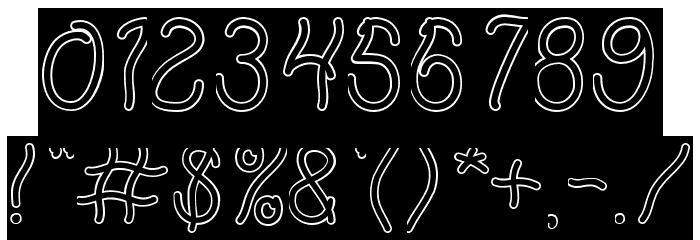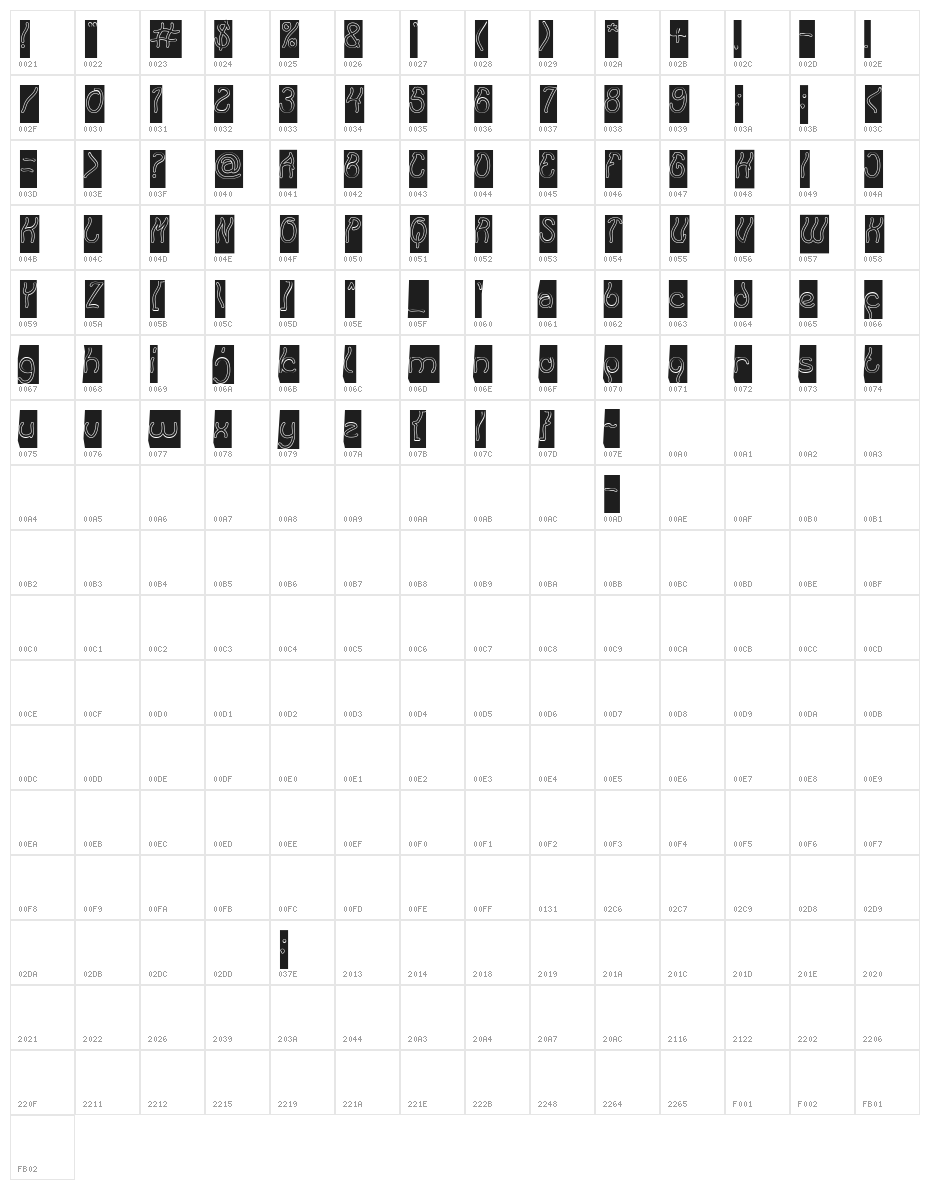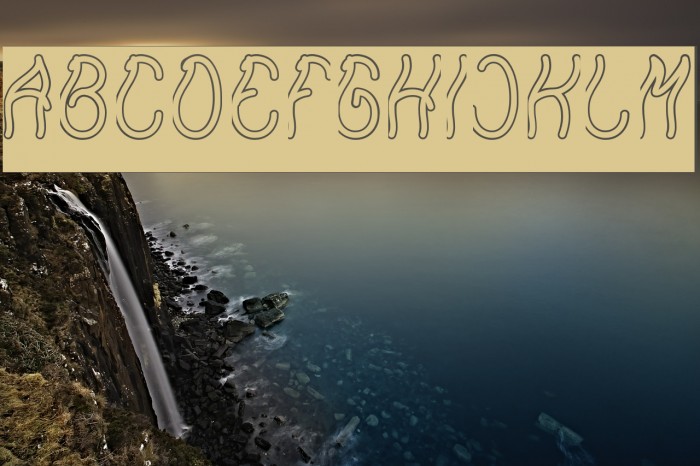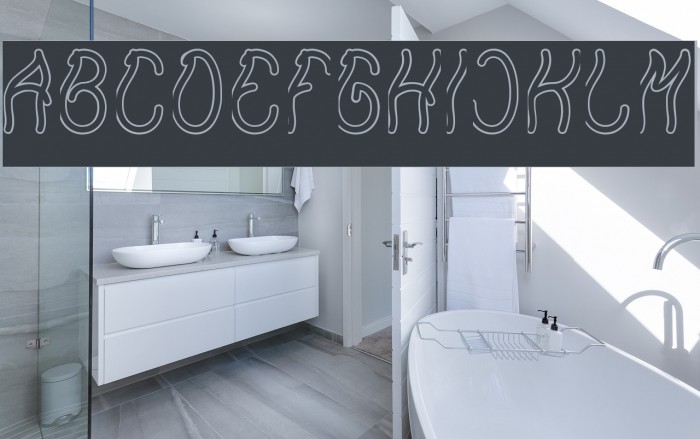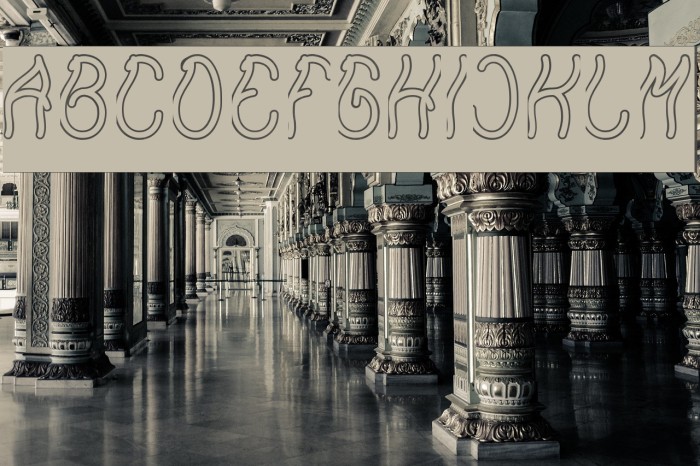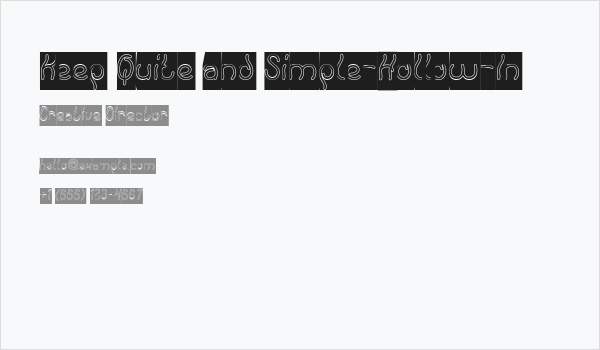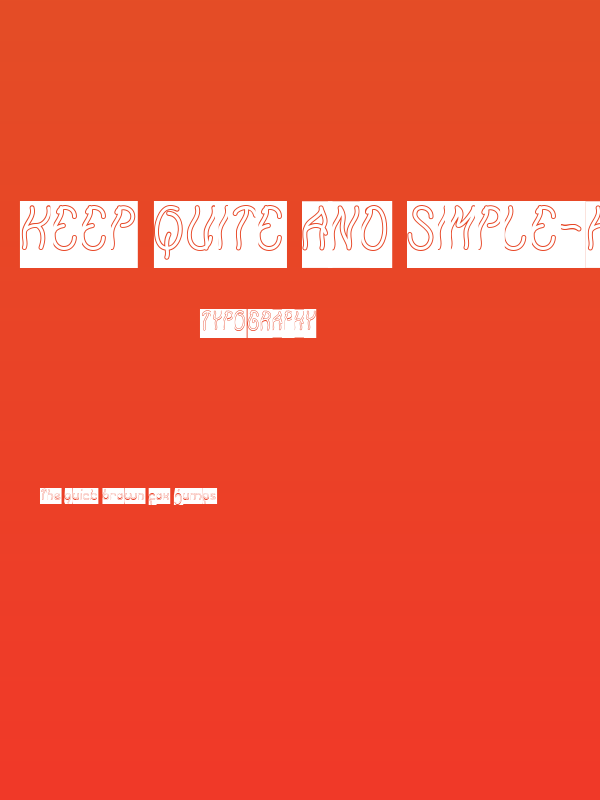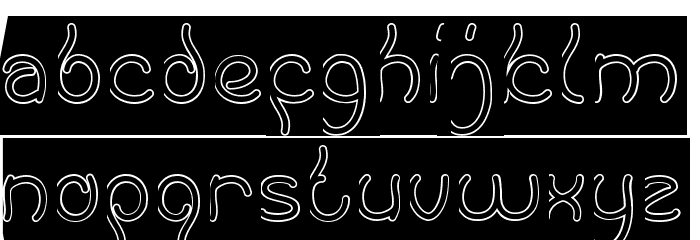
Keep Quite and Simple-Hollow-In Font
Keep Quite and Simple-Hollow-In Description
This font features a unique hollow design with a playful and artistic flair. Each character is outlined with a consistent stroke, creating a whimsical and airy appearance. The uppercase and lowercase letters maintain a cohesive style, with rounded edges and a fluid, organic form. Numbers and special characters follow the same aesthetic, ensuring uniformity across all elements. The font's hollow nature gives it a light and open feel, making it ideal for creative projects that require a touch of elegance and fun.